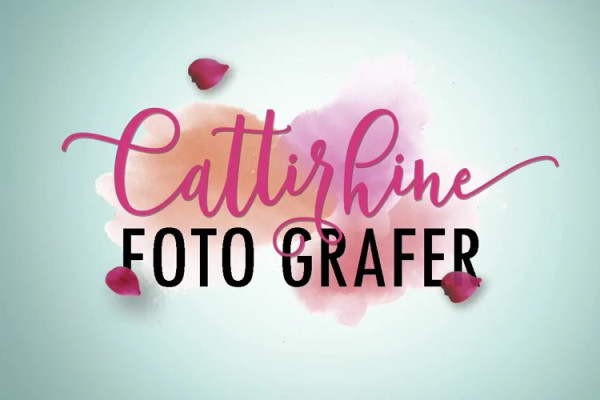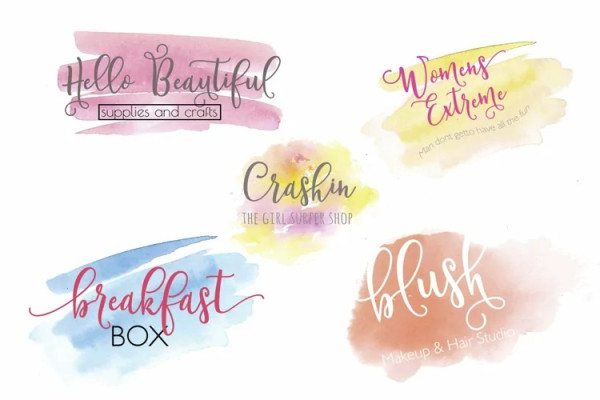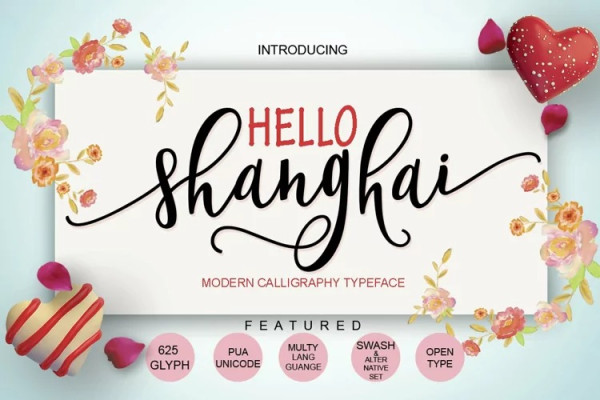
Shanghai Script Font
Shanghai Script Font, a remarkable collection of modern script fonts, each with multiple OpenType features and multiple languages. Beautiful, modern and handcrafted, this gorgeous collection is sure to give your toolbox a viable typeface.
Perfect as header, signature, logo, correspondence, wedding invitations, letterheads, signage, labels, newsletters, posters, badges, Branding, greeting cards, etc.